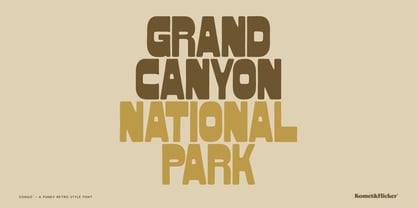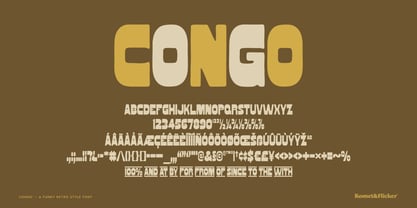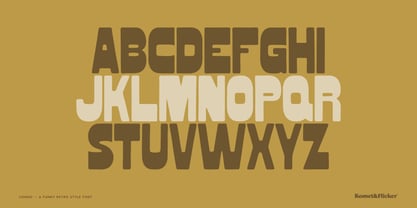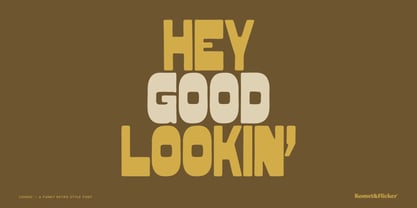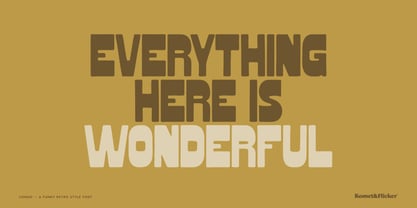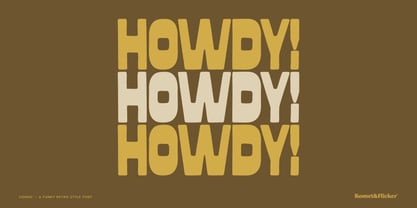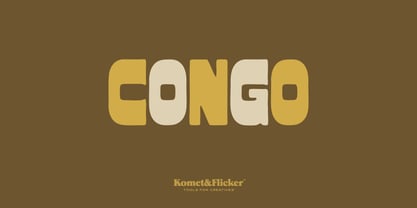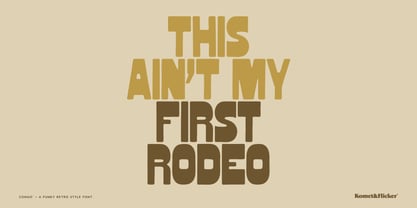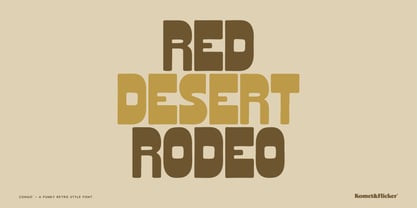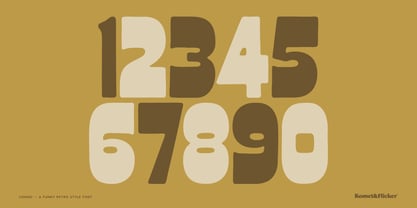
Congo
by Komet & Flicker
The Congo Font Family was designed by David Phillips and published by Komet & Flicker. Congo contains 1 styles. More about this family
Inspired by mid-century showcards, MONGO is a retro-styled all-caps display font that channels vintage Americana. Whether it’s old-school packaging, roadside signage, or groovy 70s graphics, it delivers chunky confidence with playful attitude. MONGO’s thick letterforms give it a bold graphic presence that grabs attention. It’s nostalgic without feeling dusty – fun, fearless, and ready to headline everything. THIS FONT INCLUDES - Full A-Z basic uppercase latin characters - Select European specific characters - Numbers, punctuation, and select symbols - Pre-made common fractions - Set of 11 custom connecting word glyphs In Illustrator, the extra custom glyphs can easily be accessed in the "Type → Glyphs" panel. In Photoshop they can be accessed through "Type → Panels → Glyphs Panel".
Designers: David Phillips
Foundry: Komet & Flicker